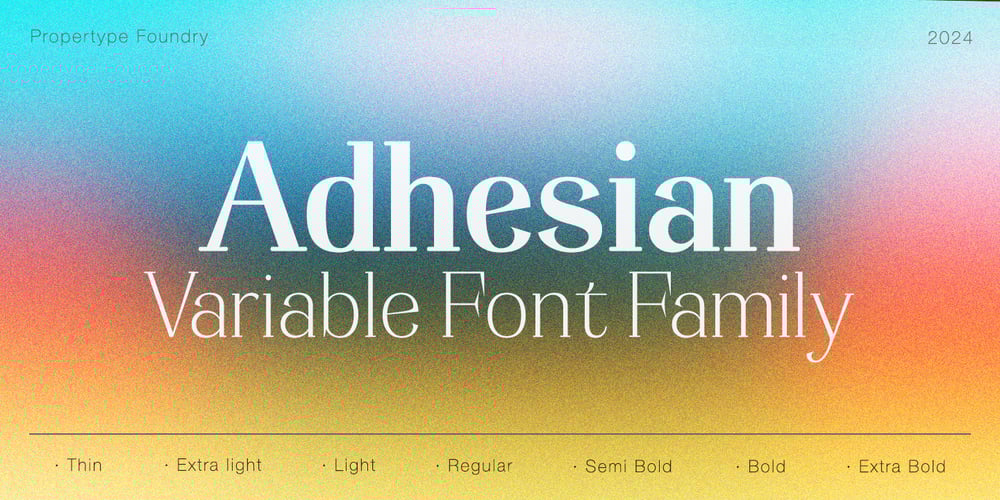
Adhesian Serif Font Family was designed by Nadia Auliana and published by Propertype. Adhesian Serif contains 7 styles and family package options. Adhesian is a high contrast typeface inspired by transitional and contemporary typography. Fonts expand their uses by weighting from thin to black. Natural curves, swelling and sloping stems, character develops as the font weight increases. While the thinner weight has reduced contrast and optical correction to create a warm and soft appearance.